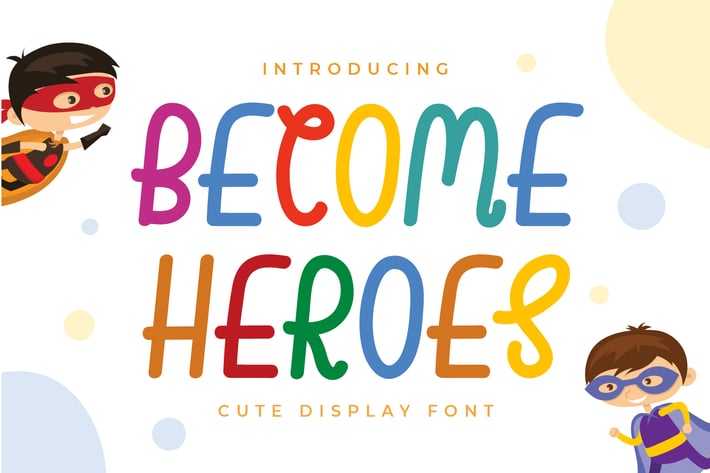
Becomes Heroes - Display Handwriting Font
Creavora
Introducing Becomes Heroes - Display Handwriting Font
Become Heroes is an adorable quirky display font. It will add an incredibly joyful touch to your designs.
Fall in love with its playful style and use it to create beautiful stationery art, eye-catching social media posts, and much more!